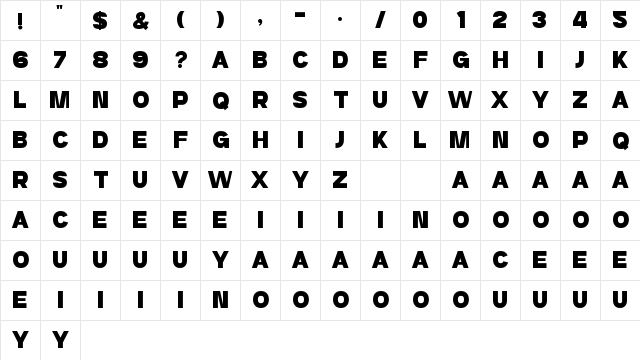
Rights Regular
Foundry: Perfectype
Designer: Usman Albaehaqi
Design Context for Rights
Rights is a composed and adaptable typeface that performs quietly and consistently across a wide range of design contexts.